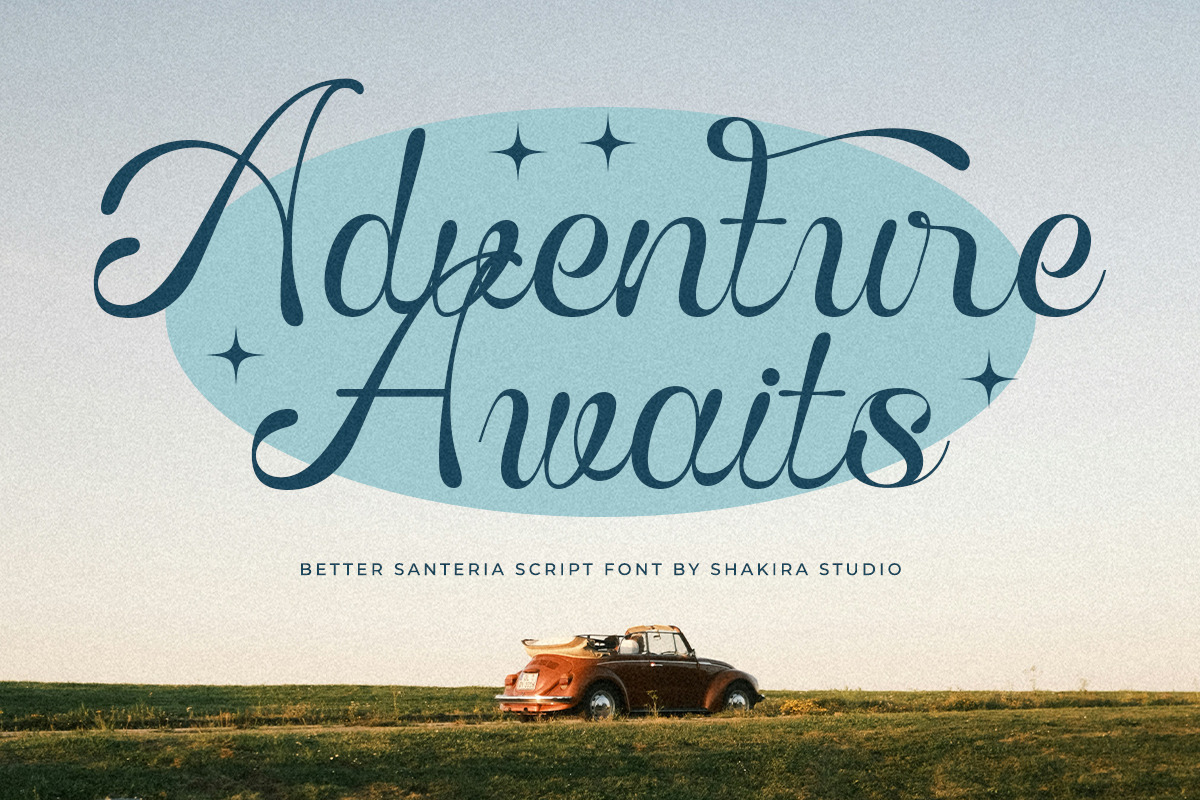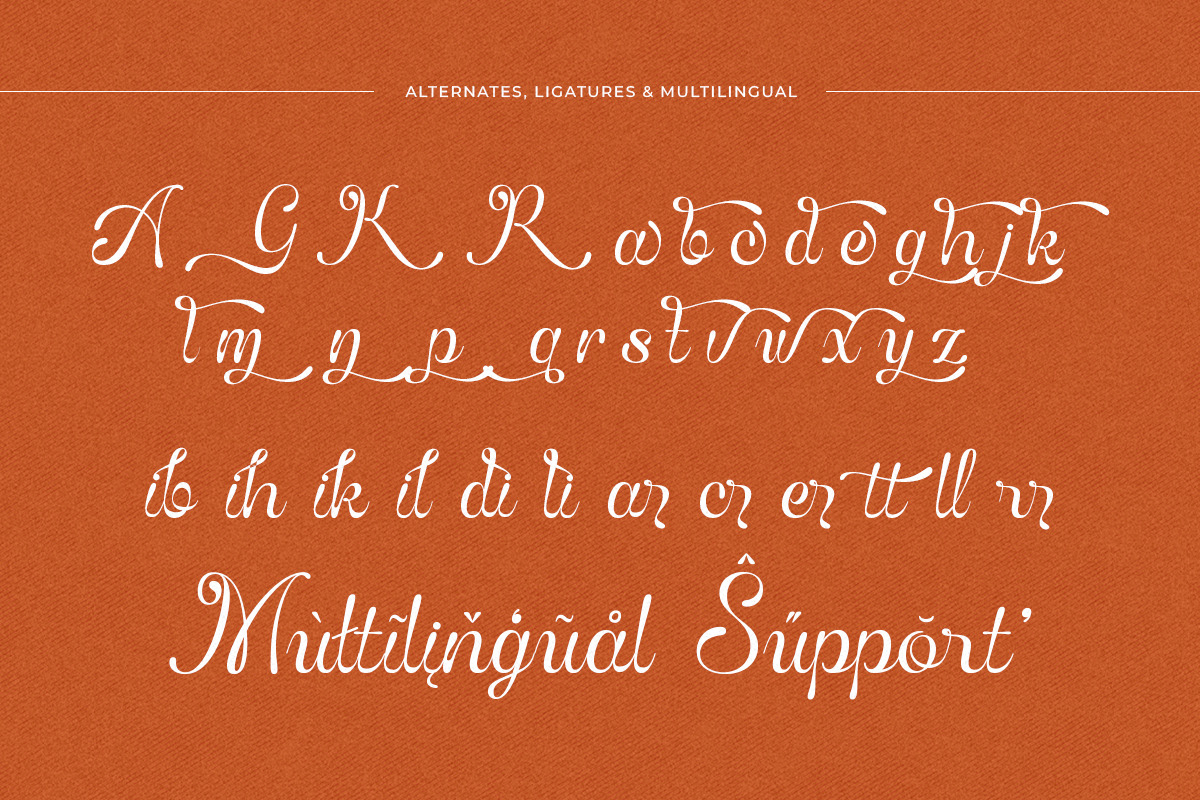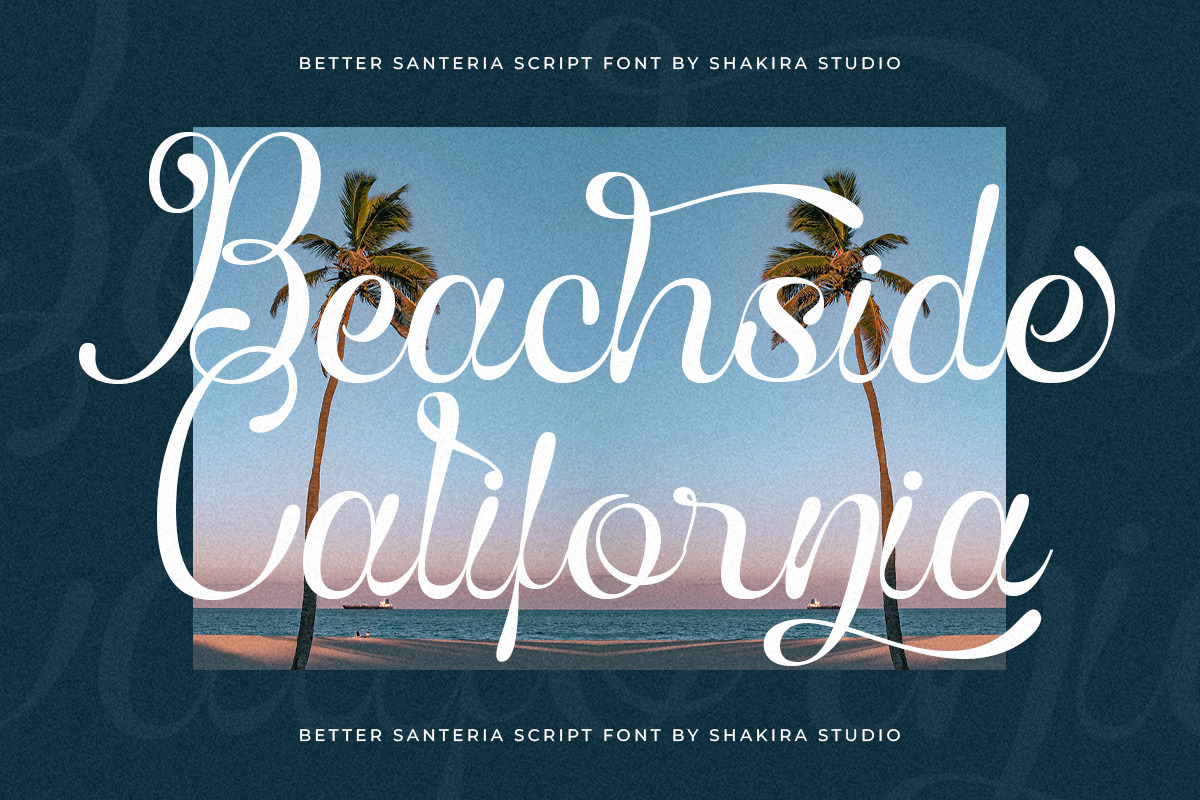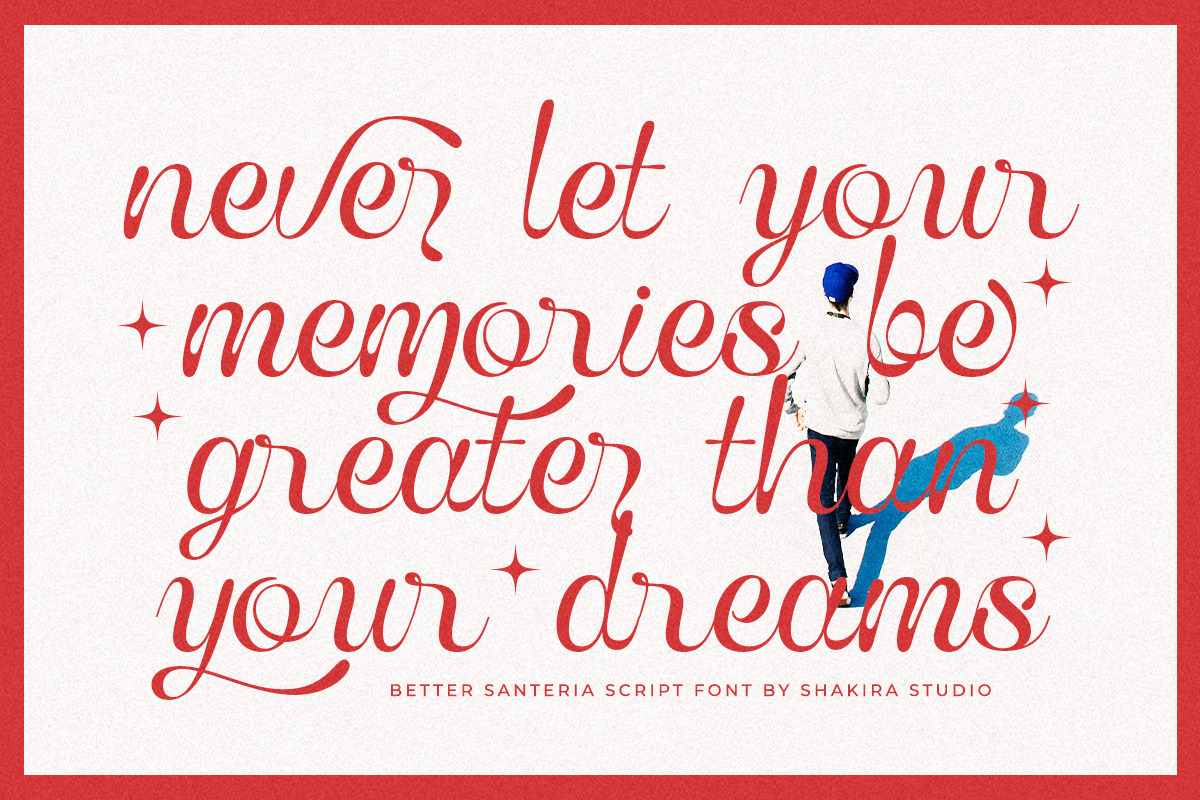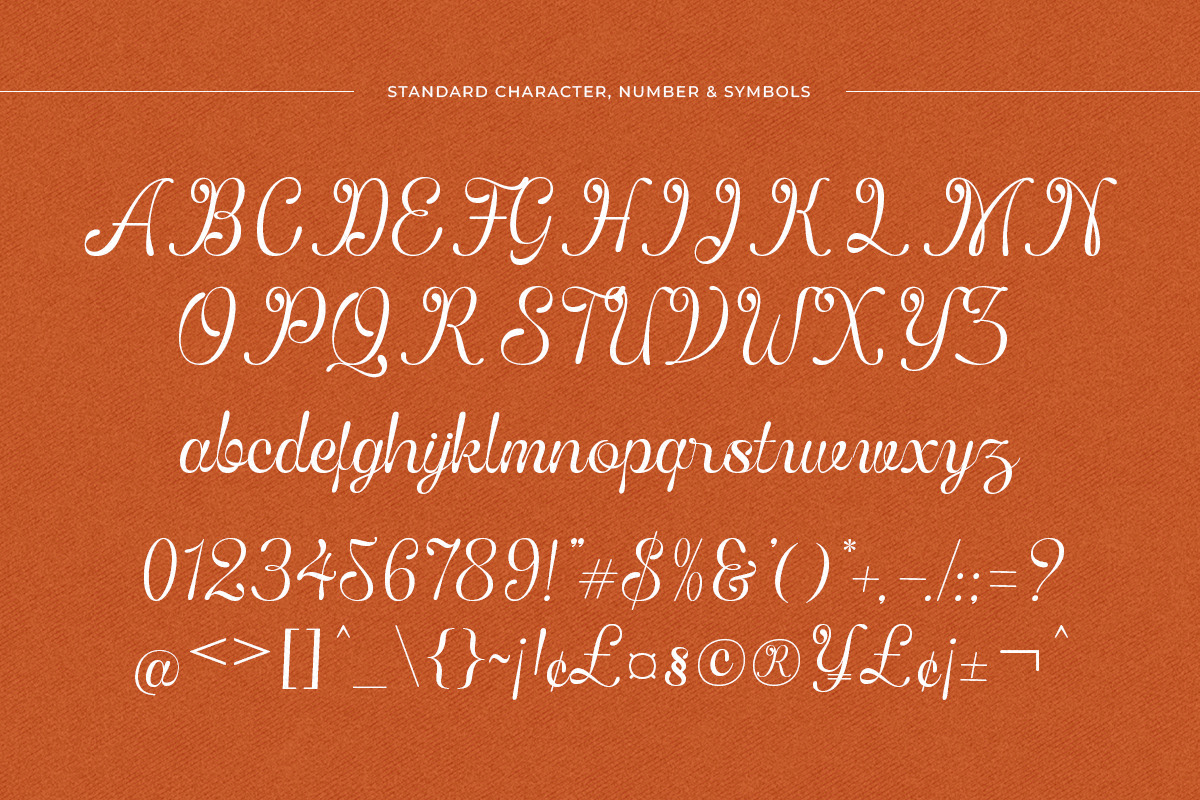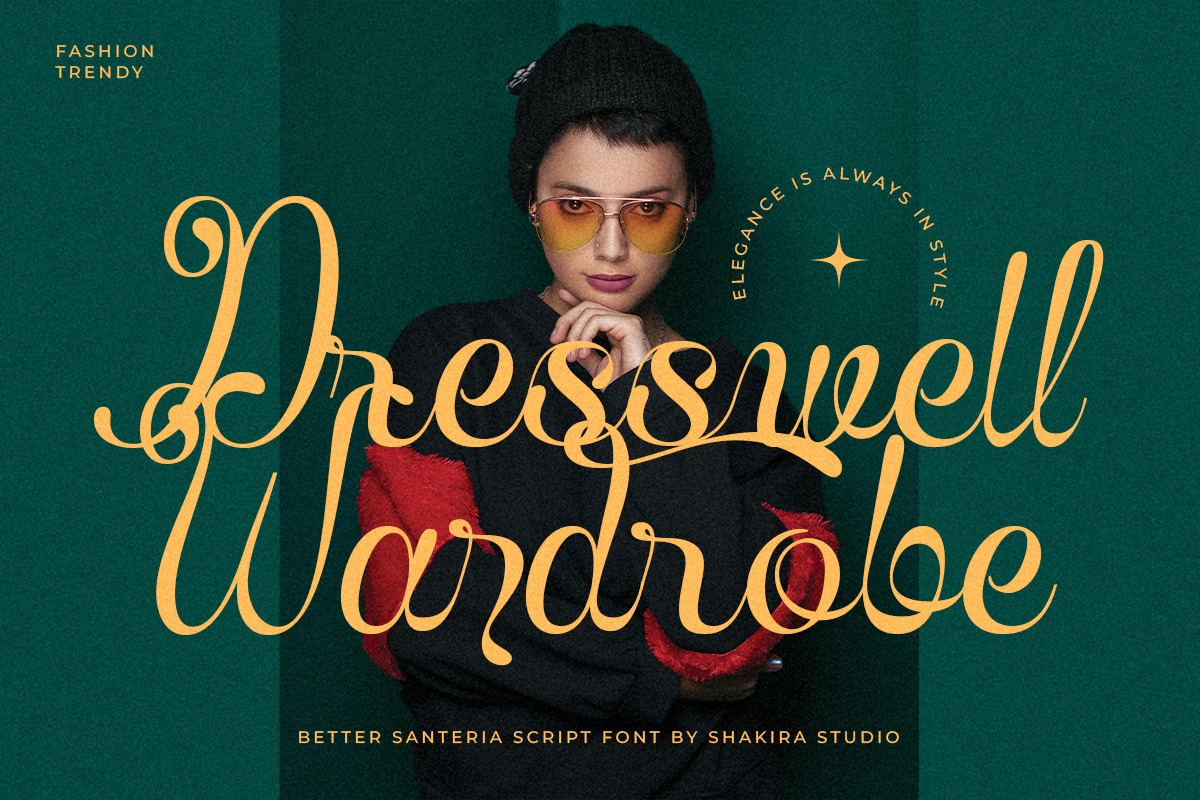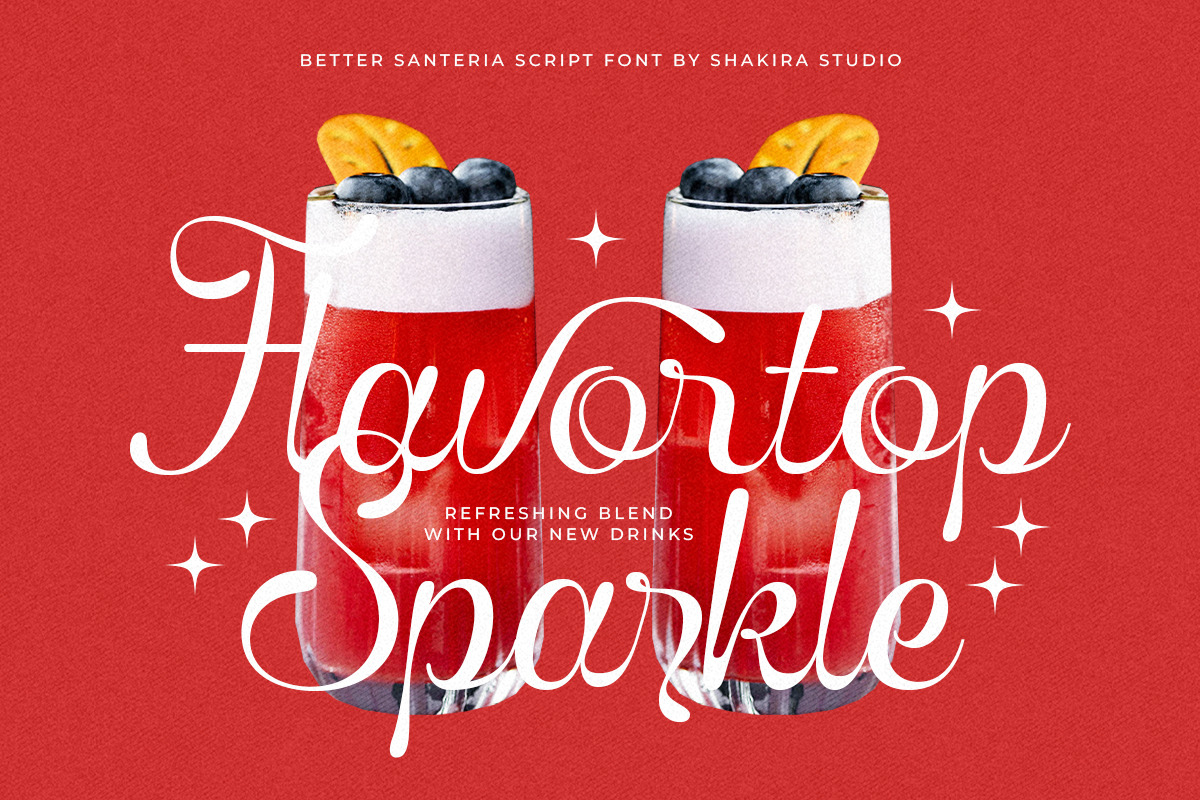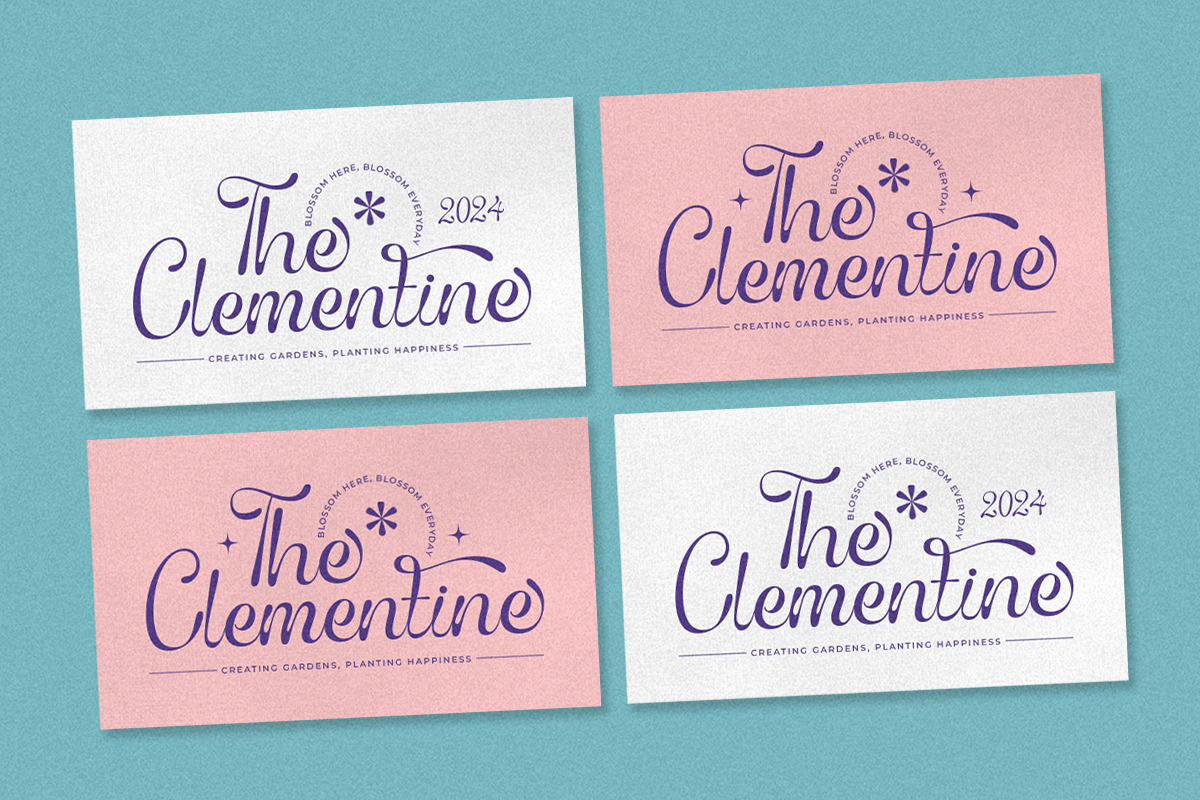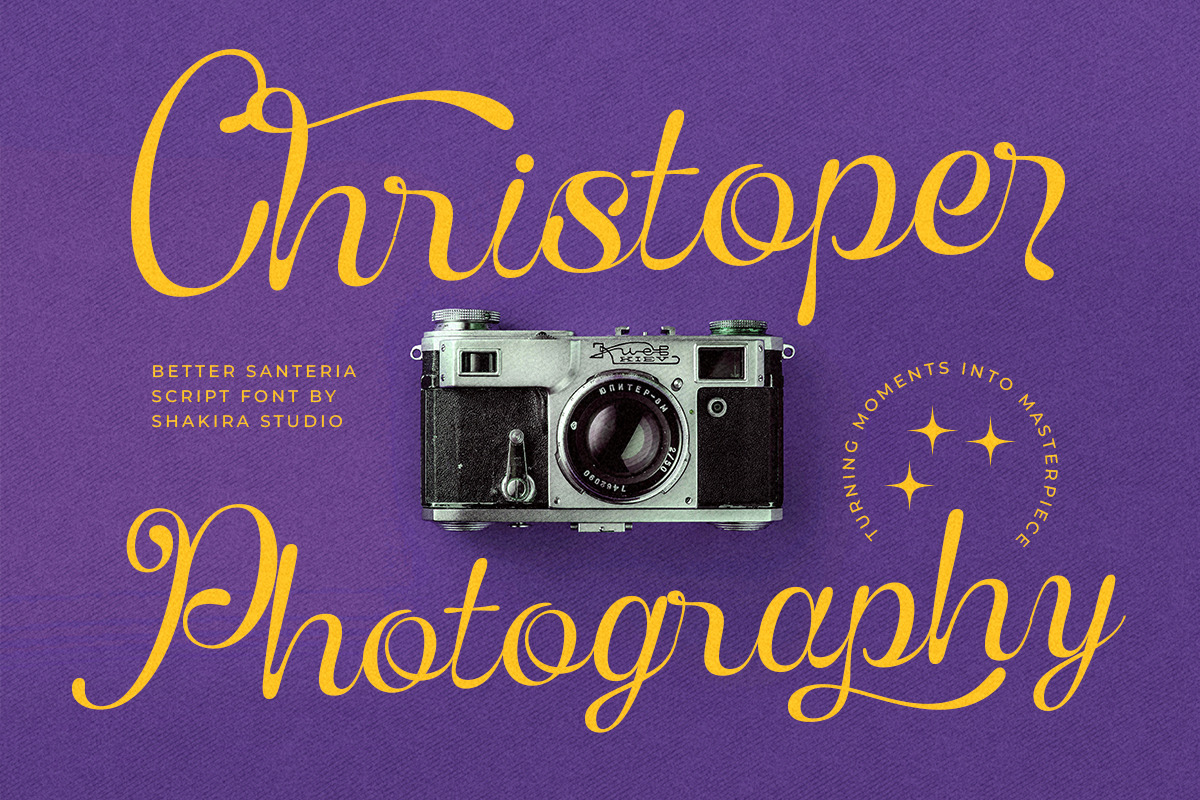
Better Santeria - Handwritten Script
Better Santeria is a stylish handwritten script font, perfect for adding a personal and elegant touch to your designs. This versatile font comes with stylish alternates and ligatures, making it ideal for branding, logos, invitations, and more. Whether you're crafting social media graphics, product packaging, or wedding invitations, Better Santeria adds a unique, creative flair to any project. Get inspired with this trendy, eye-catching font!
- Opentype features ( ligature, alternate )
Multilingual character supports : (Afrikaans, Albanian, Catalan, Croatian, Czech, Danish, Dutch, English, Estonian, Finnish, French, German, Hungarian, Icelandic, Italian, Lithuanian, Maltese, Norwegian, Polish, Portuguese, Slovenian, Spanish, Swedish, Turkish, Zulu)